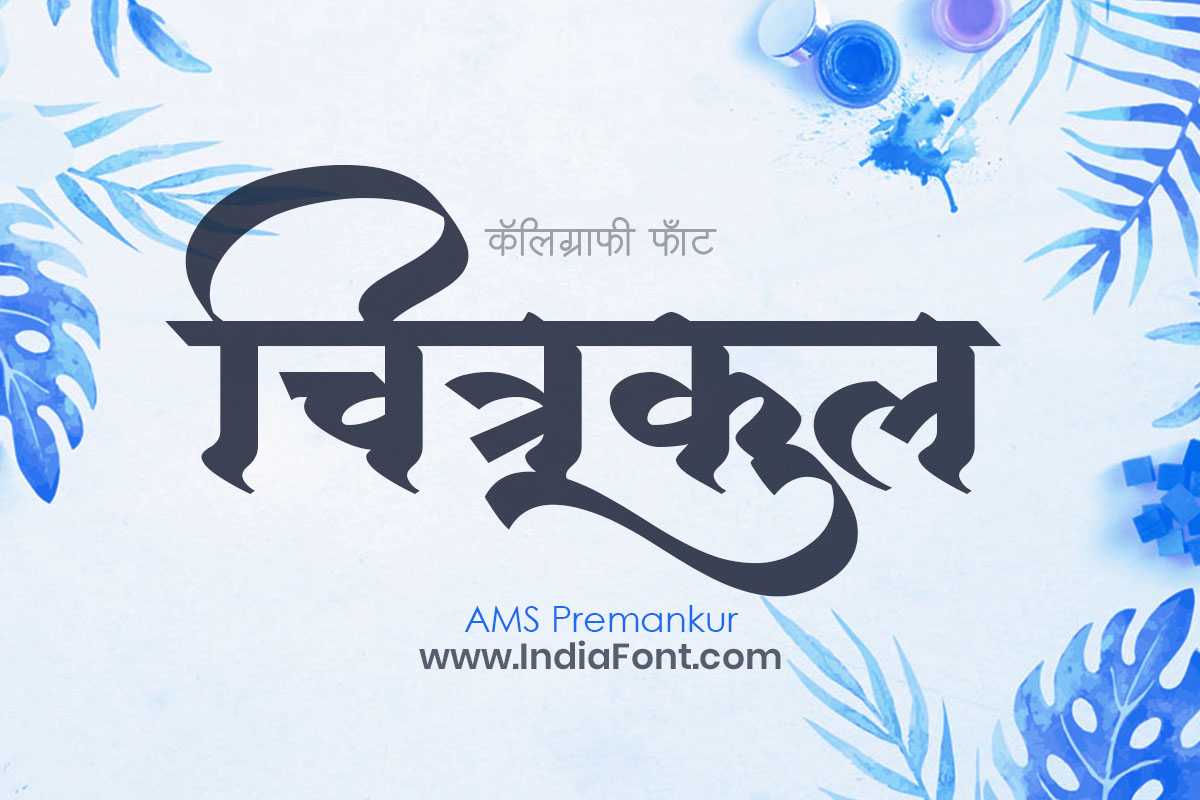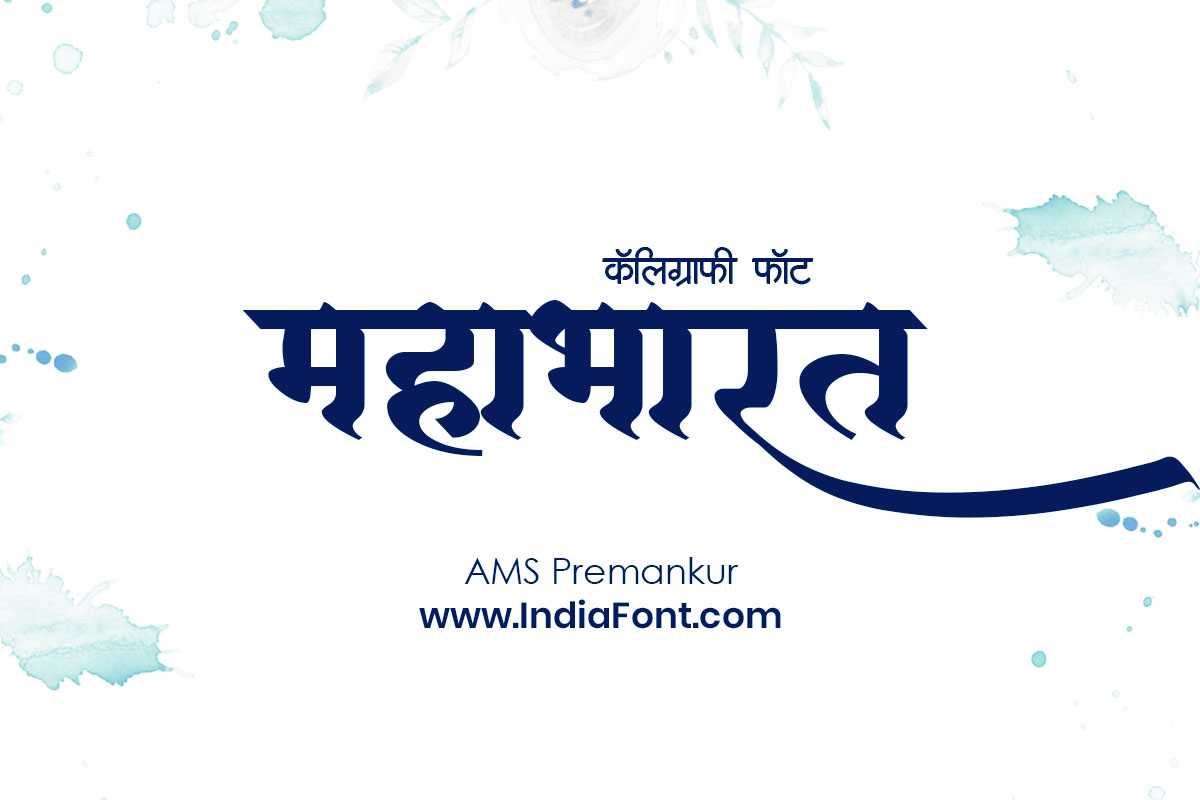
AMS Premankur
Master AMS Premankur: elegant calligraphy font that exudes romance and passion. Perfect for sentimental Hindi & Marathi designs with graceful charm.
About AMS Premankur Font
Master AMS Premankur: elegant calligraphy font that exudes romance and passion. Perfect for sentimental Hindi & Marathi designs with graceful charm. This calligraphy font combines elegance with functionality, making it perfect for various design applications.
AMS Premankur is a professionally crafted calligraphy typeface that brings clarity and style to your projects. Designed with attention to detail, it supports hindi and marathi characters flawlessly.
Whether you're working on wedding-materials, invitations, headers, or other creative projects, AMS Premankur delivers consistent performance across both digital and print media. This carefully designed typeface ensures readability and visual appeal in all your design work.
AMS Premankur excels in various design scenarios. Here are the most suitable applications:
About AMS Premankur Typography Style
AMS Premankur is a professionally crafted calligraphy font that exemplifies modern Hindi typography design. This free font is perfect for designers seeking professional branding and logo design projects.
Available in 1 weight and supporting hindi, marathi scripts, AMS Premankur offers exceptional versatility for both digital and print media. Whether you're working on wedding-materials, invitations, headers, this carefully designed typeface ensures consistent quality and professional results across all your typography projects.